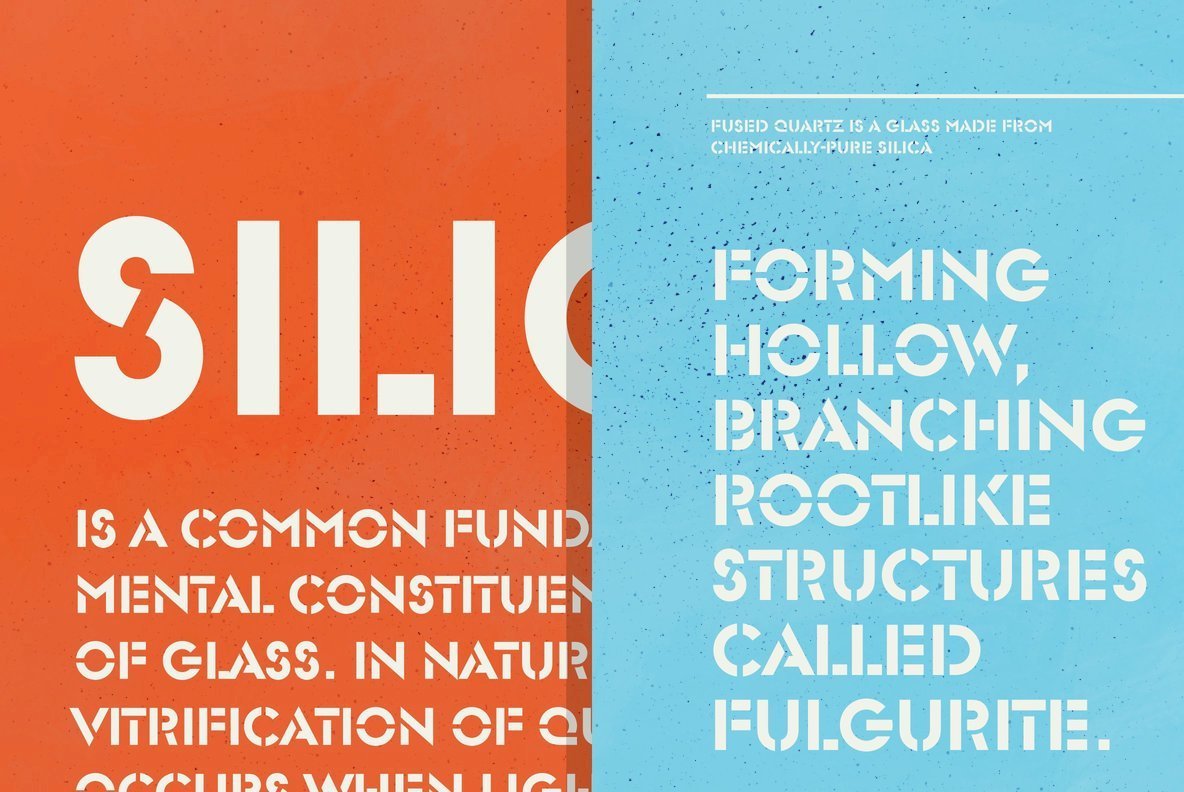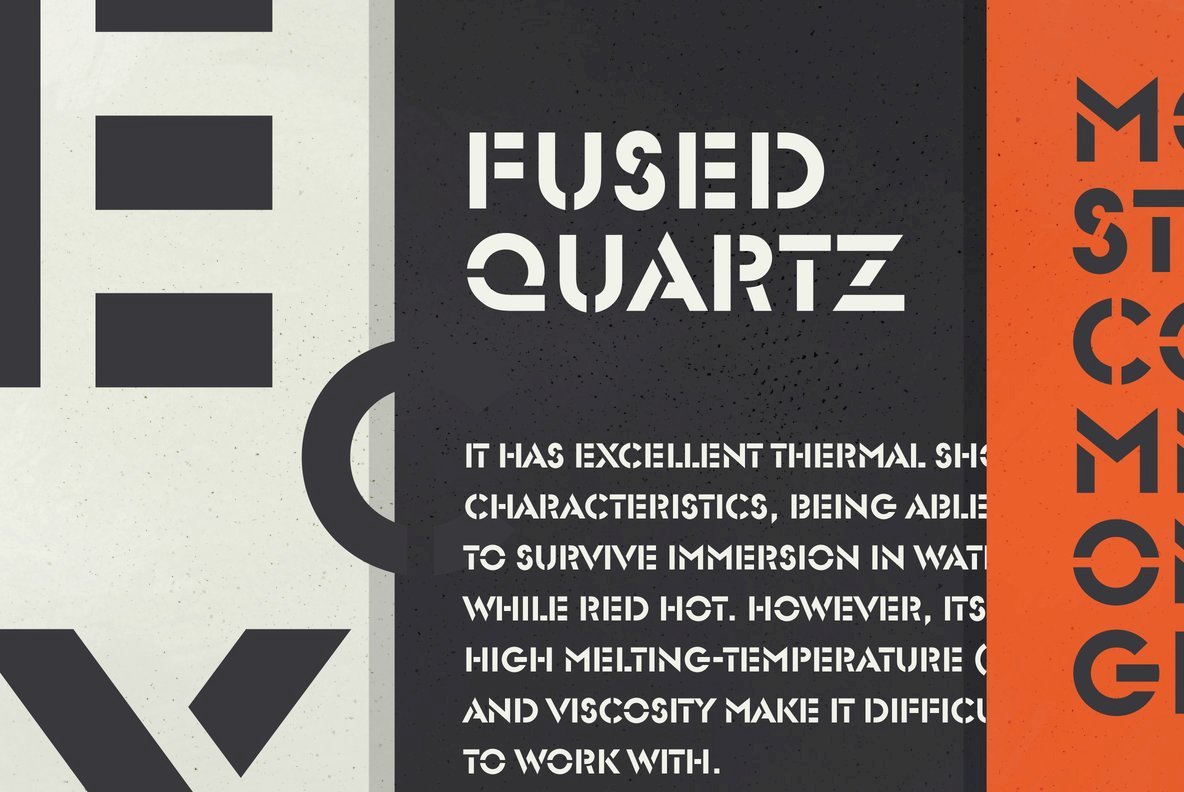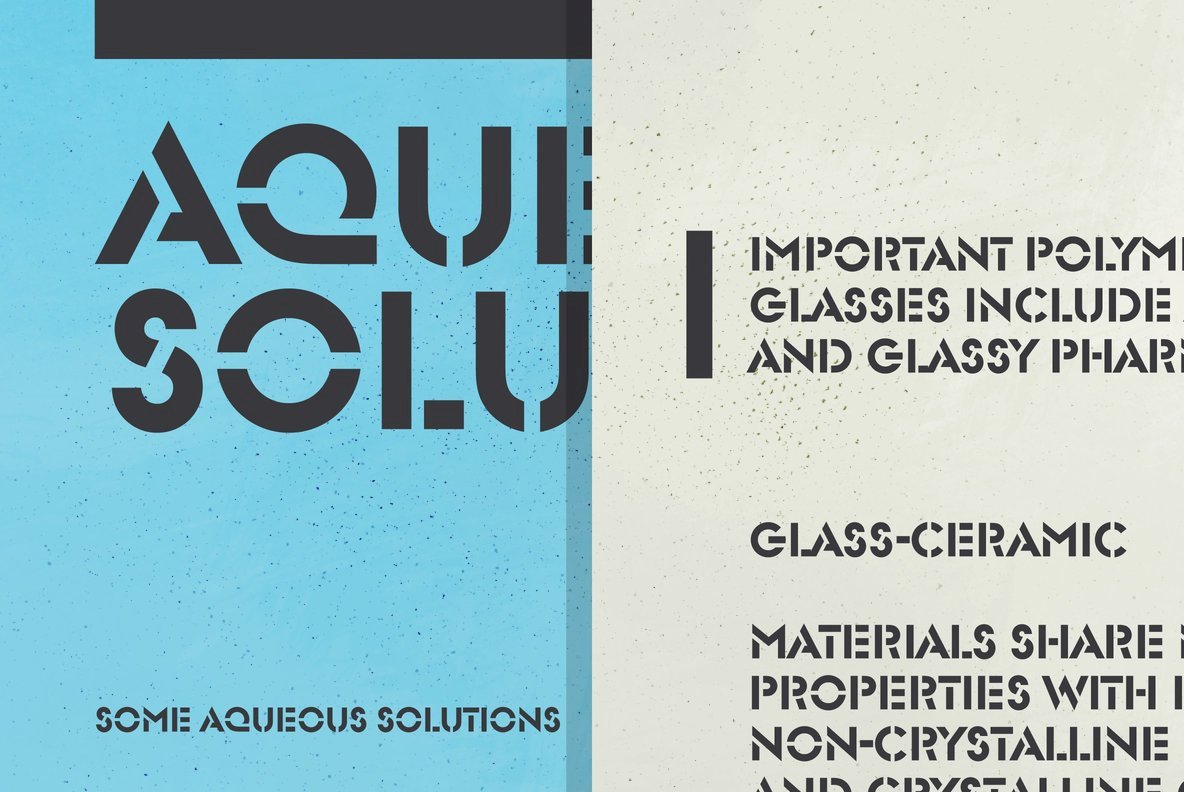
Designed by Milton Glaser, but owned by Photo-Lettering, Glaser Stencil has been brought back to life by the German type masters at URW.
Designed by Milton Glaser, but owned by Photo-Lettering, Glaser Stencil has been brought back to life by the German type masters at URW. Originally designed in 1970, this design still carries the same power it did over 40 years ago.